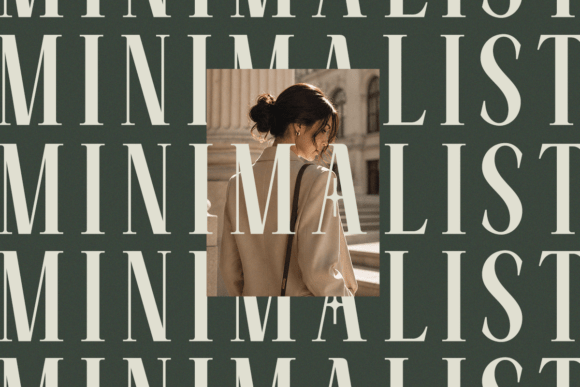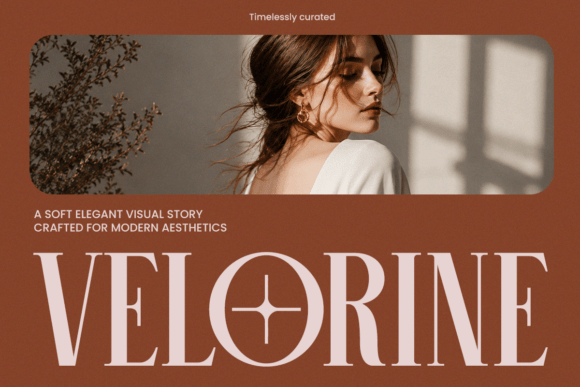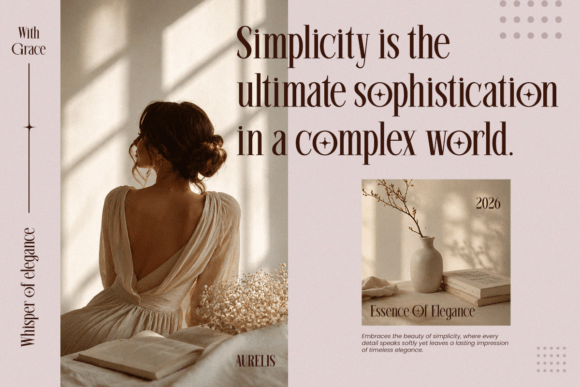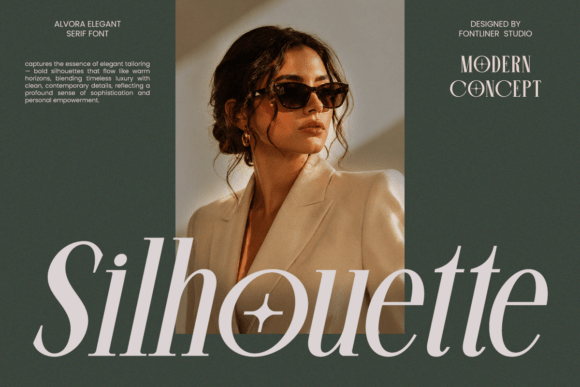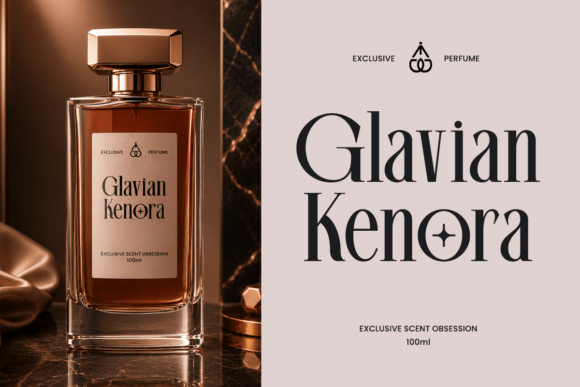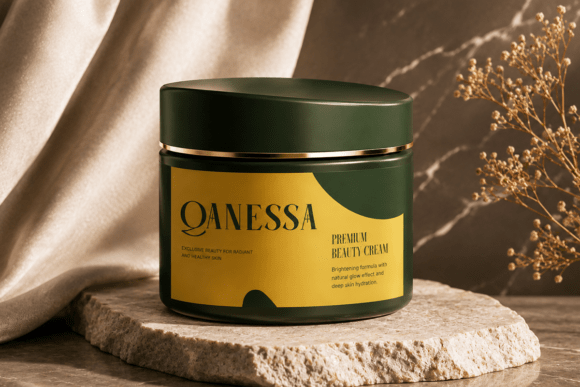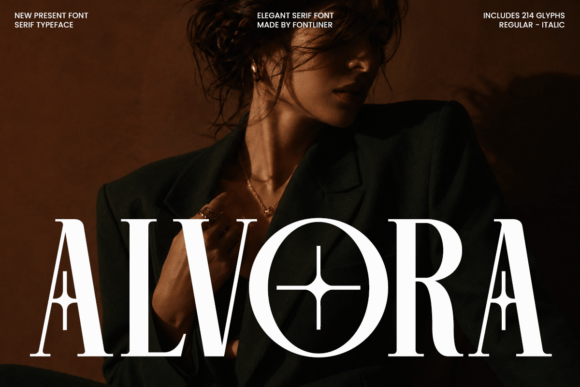
The Elusive Luxury Font: How Alvora Transformed My Design Project
I still remember the design project that had me on the edge of my seat. I was working on a luxury branding campaign for a high-end fashion client, and I was determined to nail it. But as I scrolled through font after font, I just couldn’t find the right fit. That was until I stumbled upon Alvora, a refined luxury serif font that instantly elevated my design game.
An Honest Review of Alvora
- ✨ Elegant high-contrast letterforms that scream luxury
- ✅ Stylish proportions that balance classic sophistication with modern flair
- 🔥 214 glyphs, including regular and italic styles, for ultimate versatility
- 💼 Perfect for a range of design projects, from fashion logos to editorial headlines
While Alvora is an exceptional font, there are a few things to keep in mind:
- ⚠️ Some users may find the font too ornate for certain design projects
- 🤔 Limited availability of certain OpenType features in certain software
The Story Behind Alvora
Alvora was crafted with the intention of bringing a touch of luxury to the world of typography. Inspired by the elegance of high-end fashion and the sophistication of classic serif fonts, Alvora’s designer aimed to create a typeface that would elevate any design project. With its refined letterforms and versatile styling options, Alvora has quickly become a go-to font for designers seeking a polished, upscale presence.
| Font Name | Alvora Font |
| Author | Font Liner |
| What makes Alvora suitable for luxury branding? | Alvora’s elegant high-contrast letterforms, stylish proportions, and versatile styling options make it perfect for high-end branding and design projects. |
| Can I use Alvora for editorial design? | Absolutely! Alvora’s refined serif design and range of glyphs make it ideal for editorial headlines, magazine layouts, and other text-heavy design projects. |
| Is Alvora available in multiple weights? | Alvora comes in regular and italic styles, providing a solid foundation for most design projects. However, it’s not available in multiple weights. |
| Can I use Alvora for packaging design? | Yes! Alvora’s luxurious feel and versatile styling options make it perfect for premium packaging design, including beauty packaging, jewelry campaigns, and more. |